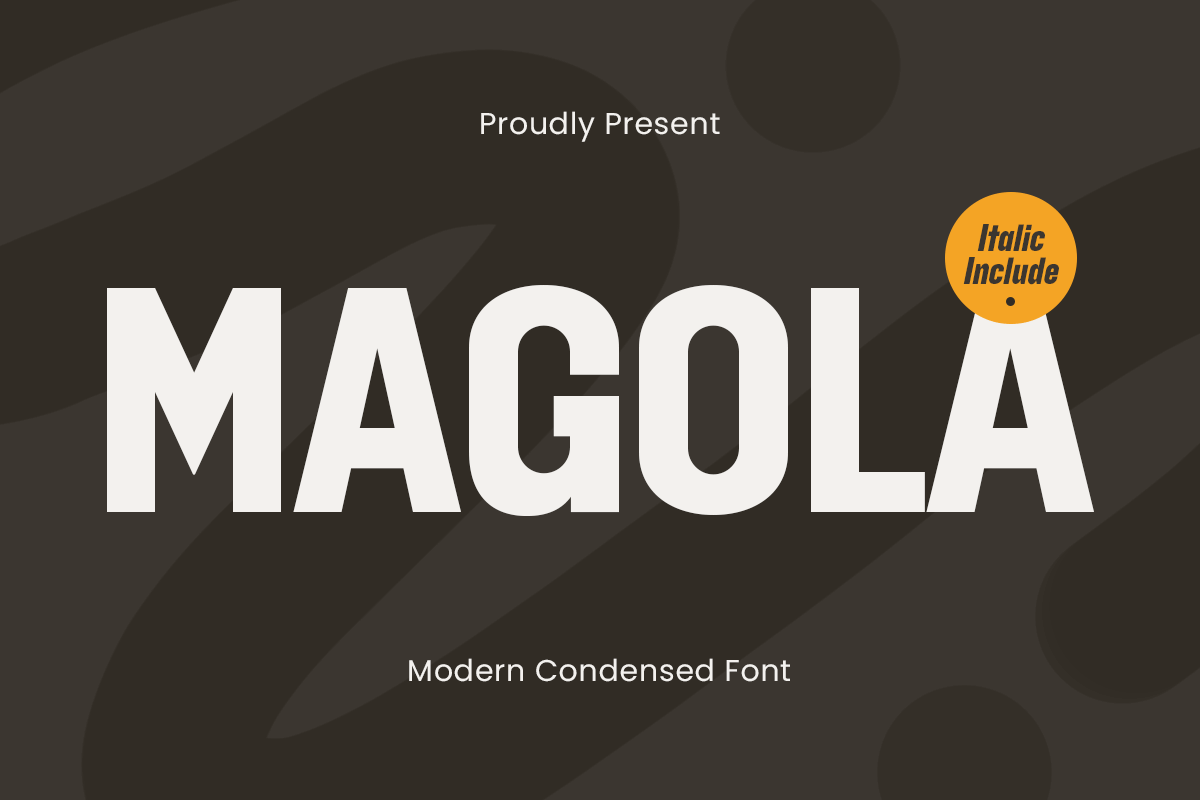
Magola
-Modern Condensed FontMagola Font - Modern Condensed Font
Magola font is a modern condensed font that blends bold aesthetics with a sleek, minimalistic touch. Designed for impactful headlines, branding, and editorial layouts, this typeface delivers strong readability while maintaining a stylish and contemporary feel.
With its narrow letterforms and balanced proportions, Magola font is ideal for fashion, luxury branding, posters, packaging, and digital content. Its clean lines and sophisticated structure create a refined look, making it perfect for high-end designs and professional typography. Whether used in uppercase for a commanding presence or in mixed case for a more dynamic feel, Magola font adapts beautifully to various design needs.
Magola Font Modern Condensed Font Features:
Stylish and clean condensed letterforms
Ready with Regular & Italic Version
Perfect for branding, headlines, and display use
Punctuation, numbers, and symbols included
Uppercase and lowercase letters
OpenType features for enhanced creativity
Elevate your designs with Magola font—a modern condensed font crafted for elegance and impact.